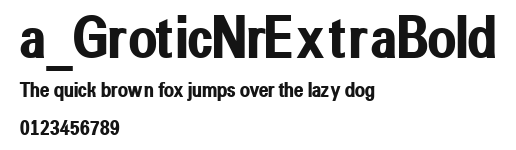
a_GroticNrExtraBold Preview
• Font Name: a_GroticNrExtraBold
• Font ID: Monotype - Arial Cyrillic Regular
• Full Font Name: a_GroticNrExtraBold
• Version: Version 1.1 - November 1992
• PostScript Name: AGroticNrExtraBold
About a_GroticNrExtraBold.ttf
a_GroticNrExtraBold.ttf is a modern, elegant sans-serif font designed for ultimate readability and visual harmony. Perfect for branding, headlines, web design, and print materials.